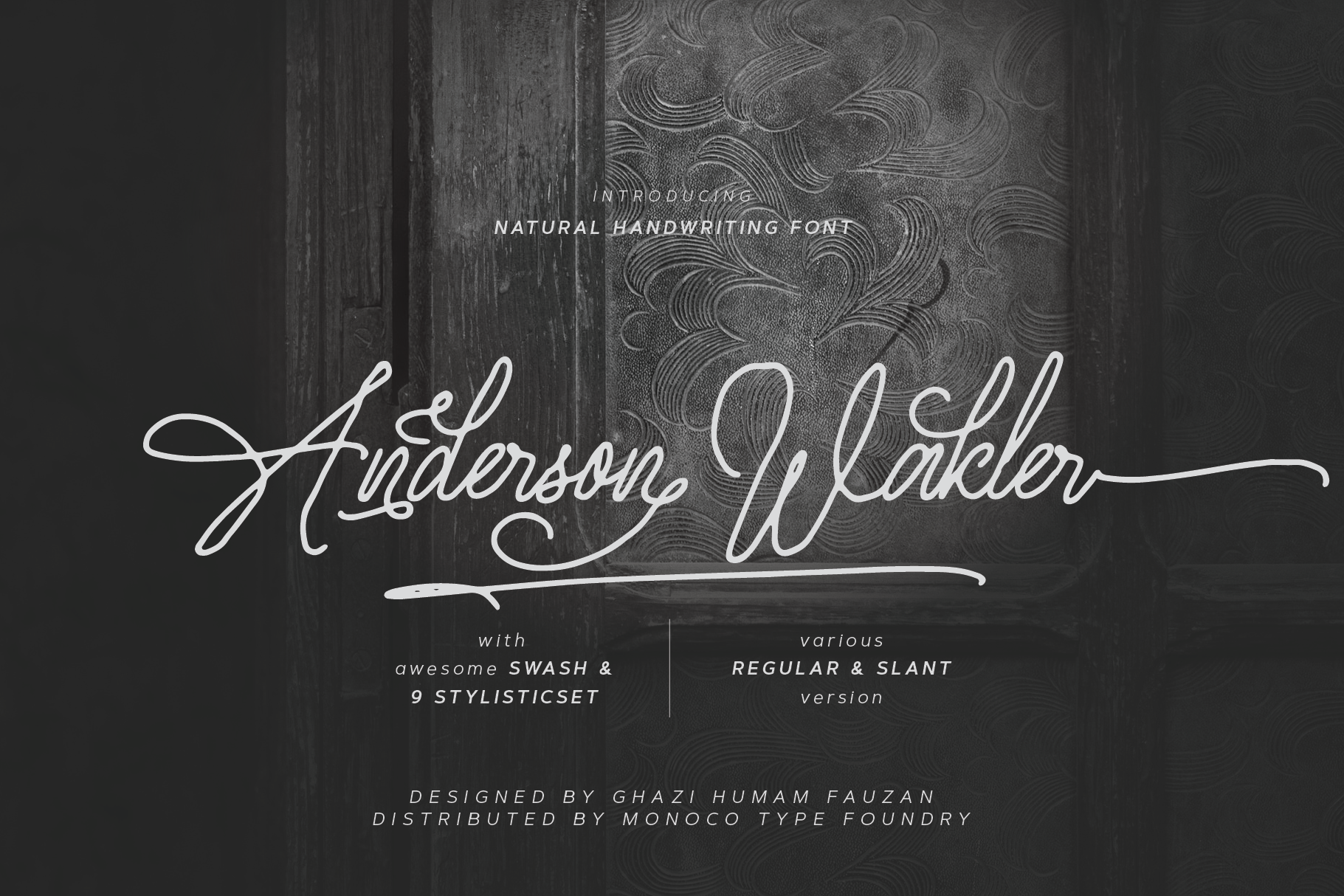
Anderson Walker Script Font
Anderson Wakler is a vintage styled, well balanced and thin lettered script font. This font is PUA encoded which means you can access all of the amazing glyphs and ligatures with ease! Add it confidently to your favorite creations and let yourself be amazed by the outcome generated. Designed by Ghazi Humam.